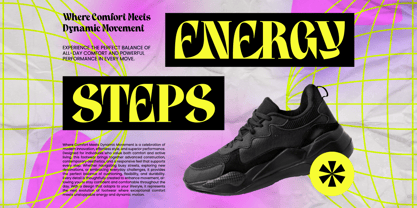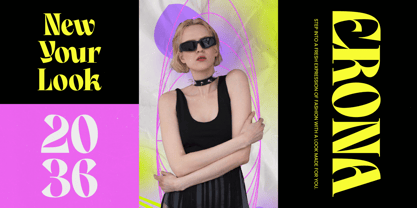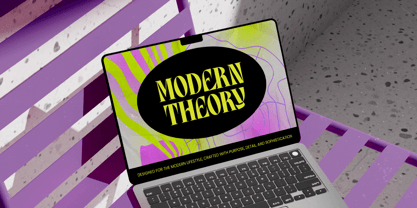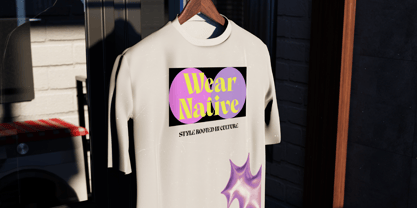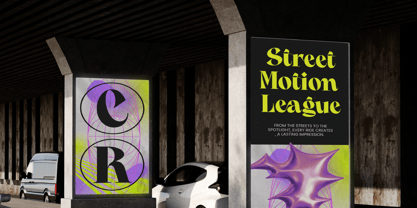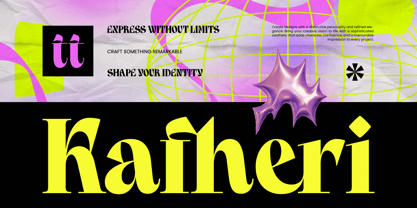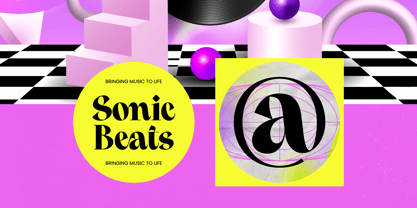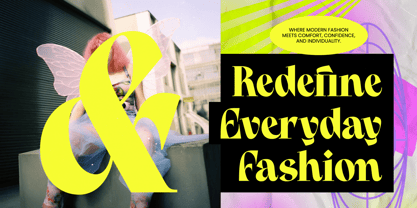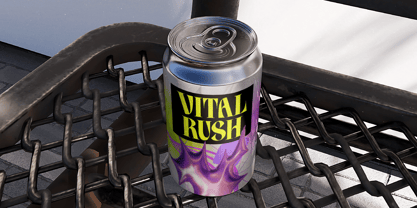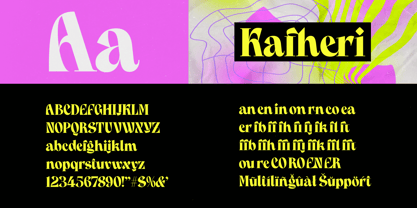
Kafheri
The Kafheri Font Family was designed by Heru Utama Putra and published by Timelesstype Studio. Kafheri contains 2 styles and family package options. More about this family
Daily Vibrant - Bold Tall Serif is a masterclass in visual impact, blending timeless elegance with a contemporary edge. This font commands attention, transforming any canvas into a high-fashion editorial statement.
Inspired by the intersection of high-contrast classicism and the raw energy of modern street style, this typeface captures a spirit of bold individuality. It draws from the distorted beauty of acid graphics and the structured poise of luxury print media to create a truly unique aesthetic.